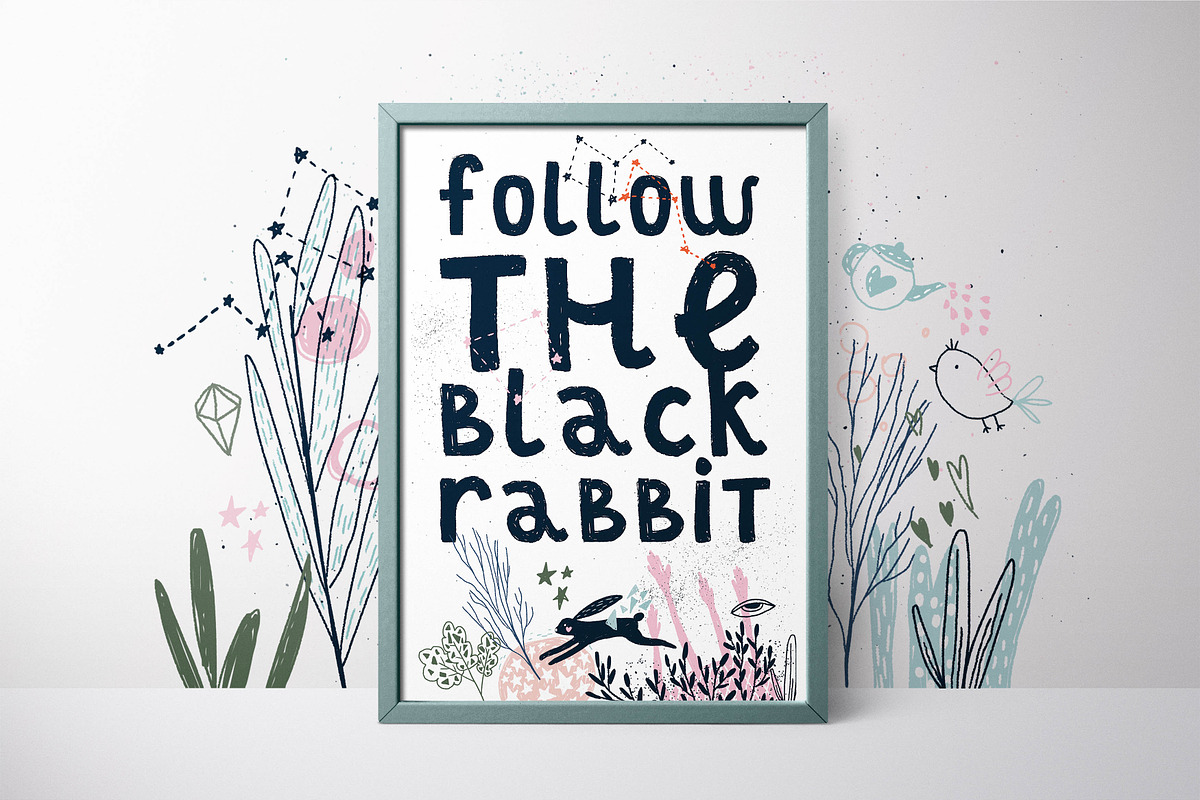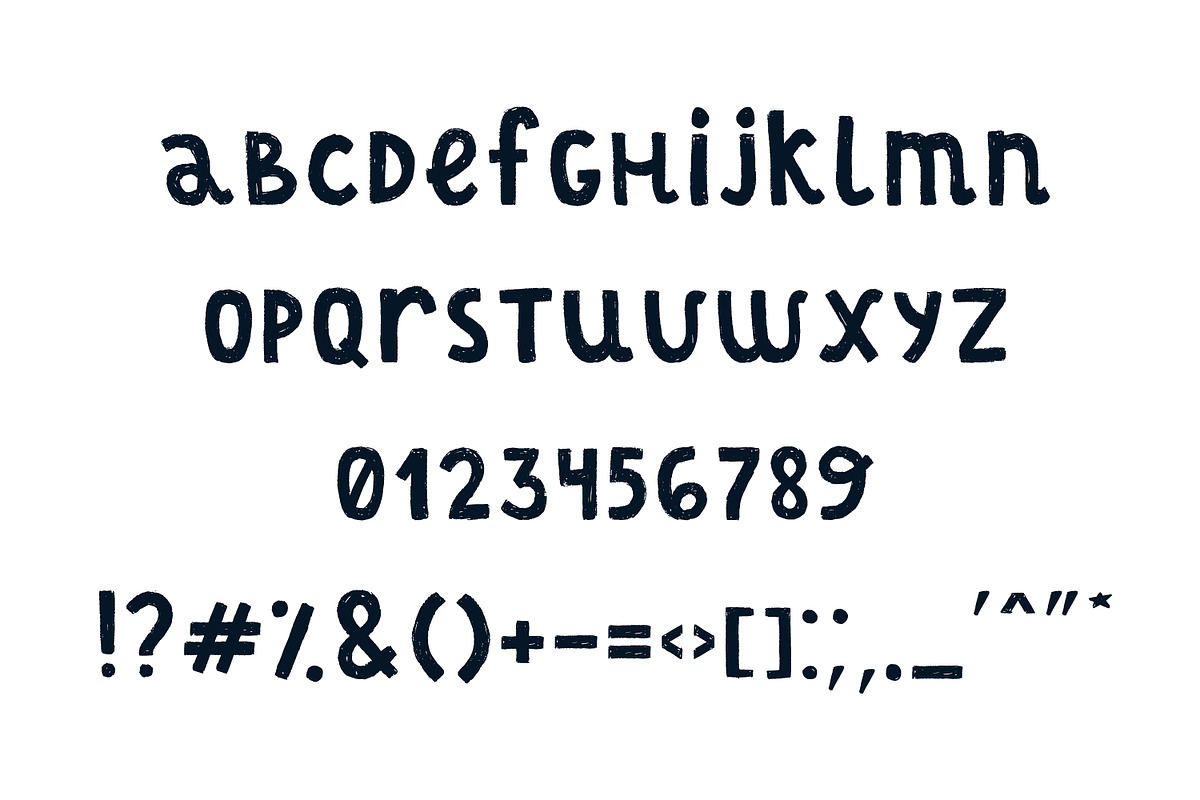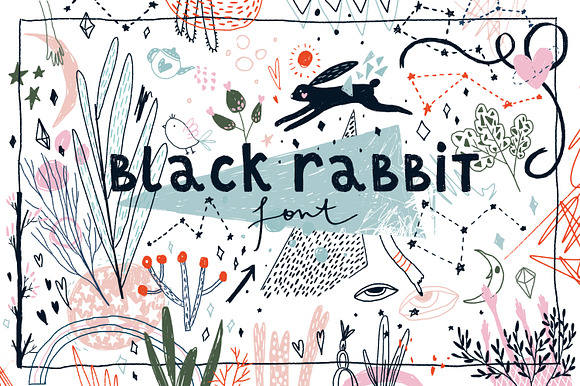
Black Rabbit | Font
Follow the black rabbit!
This is a very cool hand drawn font with rough texture full of magic, just right from Wonderland. You can create something cute or something strange and hard, use your imagination!
All letters, numerals and punctuations (almost all)